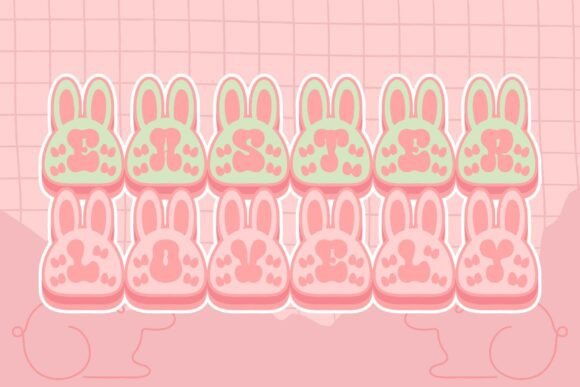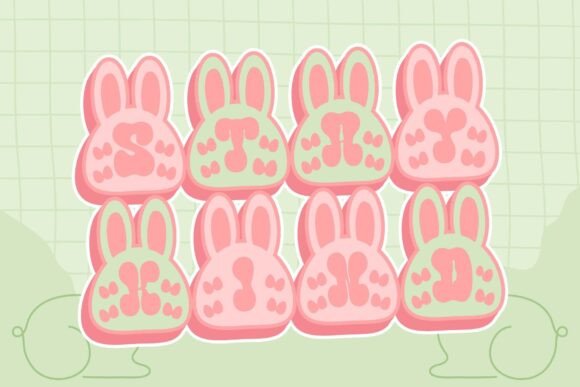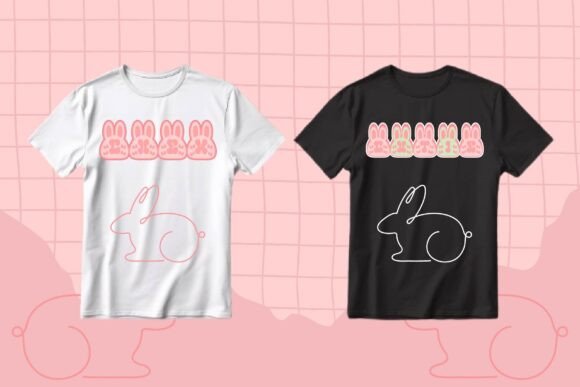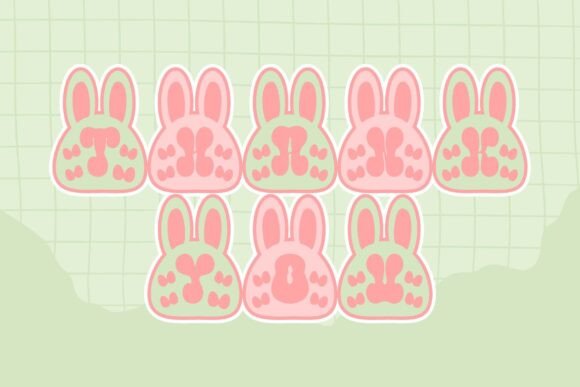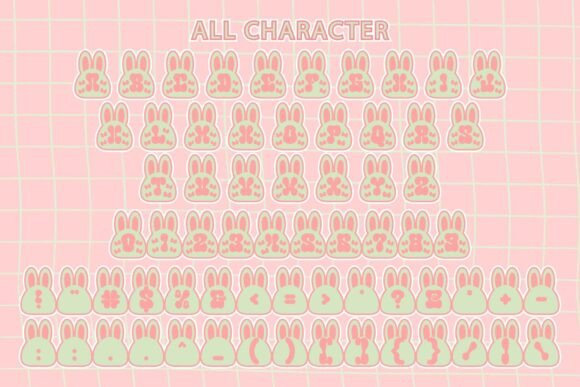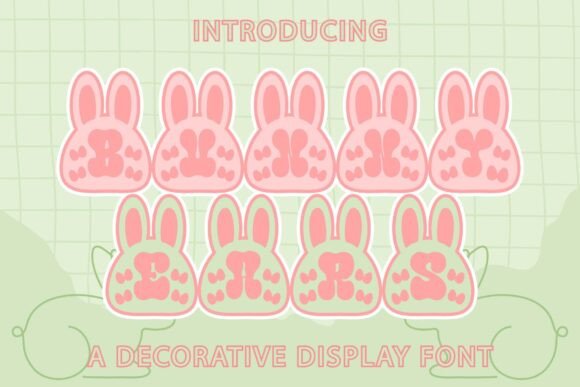
Bunny Ears Font: The Perfect Addition to Your Easter Designs
Are you looking for a font that will add a touch of whimsy and fun to your Easter designs? Look no further than the Bunny Ears font! This adorable font is perfect for creating eye-catching Easter-themed creations, from invitations and decorations to social media graphics and more.
A Fun and Chic Font for Easter Designs
Bunny Ears is a fun and chic font that’s specifically designed to capture the spirit of Easter. Its playful and lively vibe makes it perfect for adding a touch of personality to your designs. Whether you’re creating Easter-themed crafts, decorations, or digital products, this font is sure to bring a smile to people’s faces.
One of the best things about the Bunny Ears font is its versatility. It can be used for a wide range of design projects, from simple text-based graphics to more complex illustrations and designs. The font’s unique and playful style makes it perfect for adding a touch of Easter magic to any design.
The Bunny Ears font is perfect for designers and crafters who want to add a touch of Easter magic to their creations. Whether you’re creating digital products, such as printable art and SVG files, or physical crafts, such as cards and decorations, this font is sure to be a hit.
Designers can use the Bunny Ears font to create a wide range of Easter-themed designs, including:
- Easter egg hunt invitations
- Easter party decorations
- Easter-themed social media graphics
- Easter gift tags and cards
Crafters can use the Bunny Ears font to create a wide range of Easter-themed crafts, including:
- Easter cards and invitations
- Easter decorations, such as garlands and banners
- Easter-themed scrapbooking pages
- Easter gift tags and favors
The Bunny Ears font is a fun and chic font that’s perfect for adding a touch of Easter magic to your designs. With its playful and lively vibe, PUA encoding, and compatibility with a range of software, it’s the perfect choice for designers and crafters who want to create eye-catching Easter-themed creations.